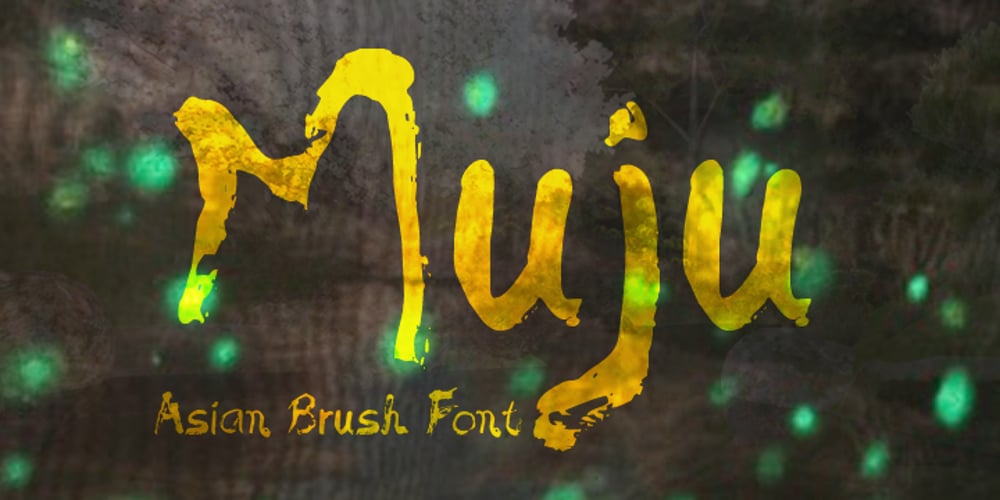
Muju Font Family was designed by Natsuko Hayashida and published by Okaycat. Muju contains 1 styles and family package options. Muju is created by classic Japanese calligraphy brush. This casual, friendly yet professional style is perfect for restaurant menus, titling, logos & more. Muju features extended characters, containing West European diacritics & ligatures, making it suitable for international environments & publications.